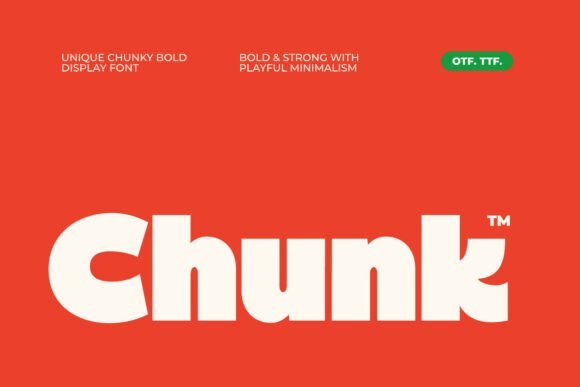
Unleashing Creativity with Chunk Font
Have you ever been in the middle of a design project, staring at a blank canvas, searching for that perfect font to make your vision pop? The blank page stares back, taunting you to make a statement. That’s when the creative spark hits – a bold, chunky font that demands attention and turns heads.
Enter Chunk Font, a game-changing display font designed to make bold statements and ignite modern creativity. With its unique chunky aesthetic, Chunk Font is perfect for logos, posters, headlines, social media graphics, and branding projects that require a statement piece. Whether you’re a seasoned designer or a creative enthusiast, Chunk Font offers unparalleled versatility and value.
With ligatures, symbols, numerals, and multilingual support, Chunk Font is a valuable addition to any designer’s toolkit, empowering them to create stunning, eye-catching designs that stand out in a crowded visual landscape.
Chunk Font Key Features
• Unique Characteristics: Chunk Font is designed with a bold, chunky texture that adds a distinctive touch to digital and print materials, making it ideal for headlines, titles, and other attention-grabbing elements.
• Language Support: Chunk Font supports a wide range of languages, including Latin, Cyrillic, and Greek alphabets, making it a versatile choice for multilingual designs.
Chunk Font Review
Overall, I have mixed feelings about the Chunk Font. While it has some great qualities, it also has some limitations that make it less than ideal for certain projects.
• The Chunk Font is great for headings and titles. Its bold, chunky design makes it perfect for grabbing attention and creating a sense of drama.
• The font is highly legible, even at smaller sizes, making it suitable for body text in certain contexts.
• The Chunk Font has a unique, hand-crafted feel that can add a touch of personality to designs.
• The Chunk Font can be overwhelming when used extensively. Its bold design can be tiring to look at, especially in large blocks of text.
• The font may not be suitable for projects that require a more subtle or understated design aesthetic.
• The Chunk Font may not be accessible for users with certain visual impairments, as its bold design can be difficult to read in certain contexts.
While the Chunk Font has its strengths, its limitations make it less versatile than I would like. It’s best suited for projects that require a bold, attention-grabbing design, but it’s not ideal for more subtle or nuanced designs.
Tips for Getting the Most Out of Chunk Font
Chunk Font works best in large font sizes, so try using it in headings or titles. You can also experiment with different font sizes and colors to create visual interest. Additionally, consider pairing Chunk Font with other fonts to create a unique and eye-catching design.
Chunk Font is commonly used in headings, titles, and call-to-actions. It’s also great for creating a bold and attention-grabbing design. Some popular use cases include:
– Headings and titles
– Call-to-actions
– Advertising materials
Alternatives to Chunk Font for Designers
Playfair Display is a luxurious, high-end serif font ideal for use in headings, titles, and other prominent text elements. Its elegant, classic design makes it perfect for high-end brands, luxury products, and formal invitations.
Compared to Chunk Font, Playfair Display is more refined and sophisticated, making it suitable for high-end designs. While Chunk Font has a more casual, vintage feel, Playfair Display exudes elegance and sophistication.